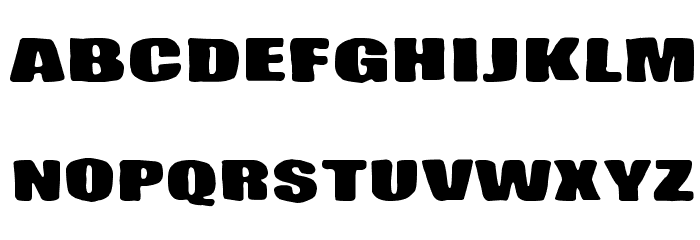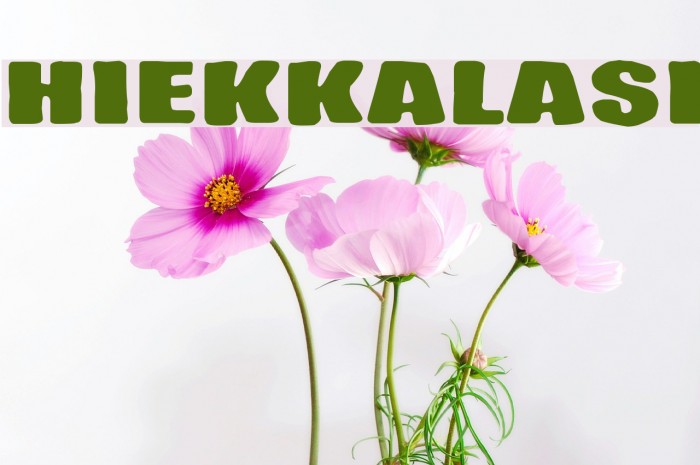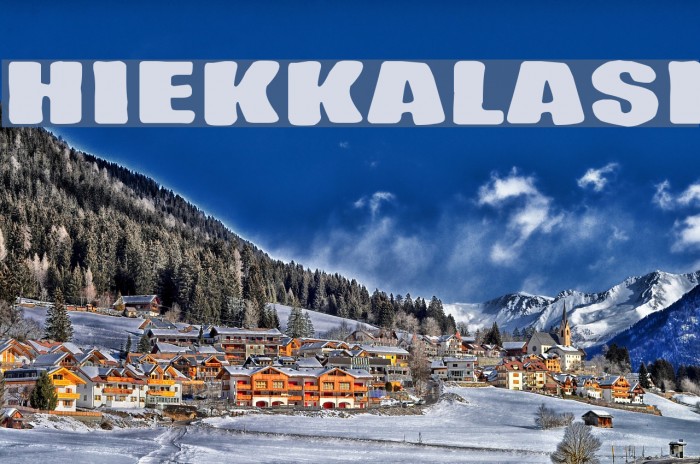
Hiekkalasi Font
This font features bold, rounded characters with a playful and robust appearance. The letters are thick and have a slightly uneven, organic feel, giving them a unique and eye-catching look. The numbers and special characters maintain this boldness, ensuring consistency across all glyphs. The overall style is reminiscent of vintage or retro designs, making it suitable for projects that require a strong visual impact. The characters are tightly spaced, enhancing the bold and compact nature of the font. The high contrast in stroke thickness adds to its striking presence.
A bold, rounded font with a playful, vintage style.
- Proposed Projects: Ideal for posters, logos, and branding materials that require a bold, retro aesthetic.
- Character Spacing: Tight
- Overall Style: Vintage
- Use Case: Logos, Posters, Headlines